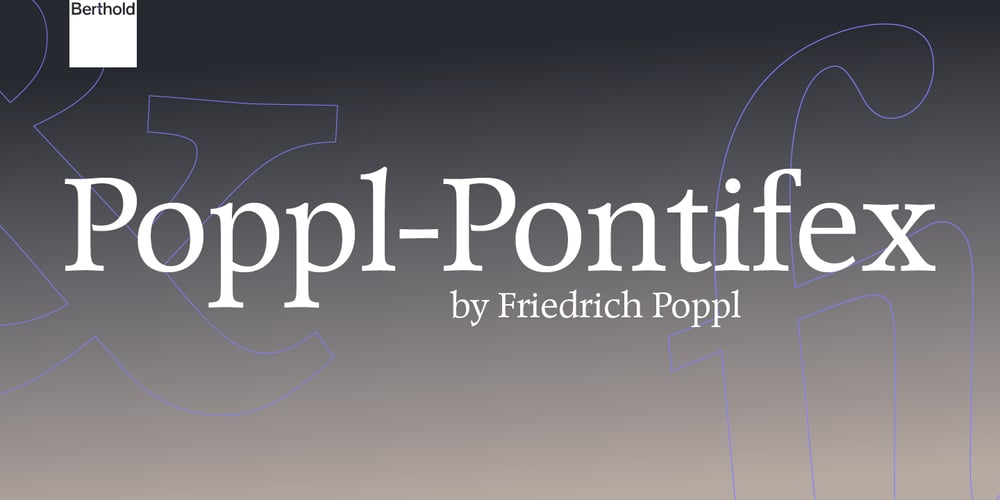
Poppl-Pontifex
Poppl-Pontifex font
Poppl-Pontifex Font Family was designed by Friedrich Poppl and published by Berthold. Poppl-Pontifex contains 5 styles and family package options. German graphic designer and professor Friedrich Poppl’s first text design, Poppl-Pontifex, was released by Berthold in 1974 and gained him international recognition as a type designer. It has a distinctive design with a large x-height, pronounced serifs and calligraphic connotations.